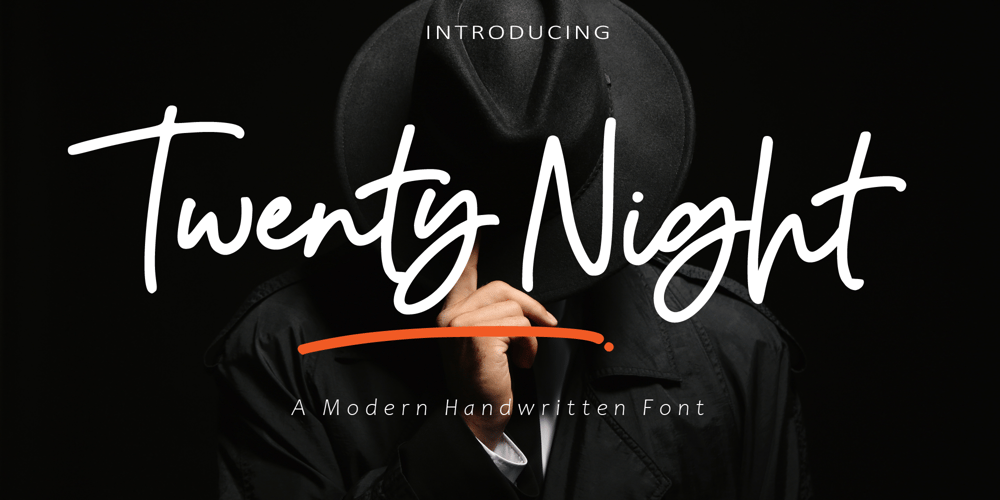
Twenty Night Font Family was designed by Amin Maryono and published by Aminmario Studio. Twenty Night contains 2 styles and family package options. Twenty Night is a modern handwriting font. Its charm makes it appear wonderfully, readable, and, ultimately, incredibly versatile. This font will look outstanding in any context, whether it’s being used on busy backgrounds or as a standalone headline!Comes in Regular and Italic styles.Thank you for your purchase!Hope you enjoy with our font